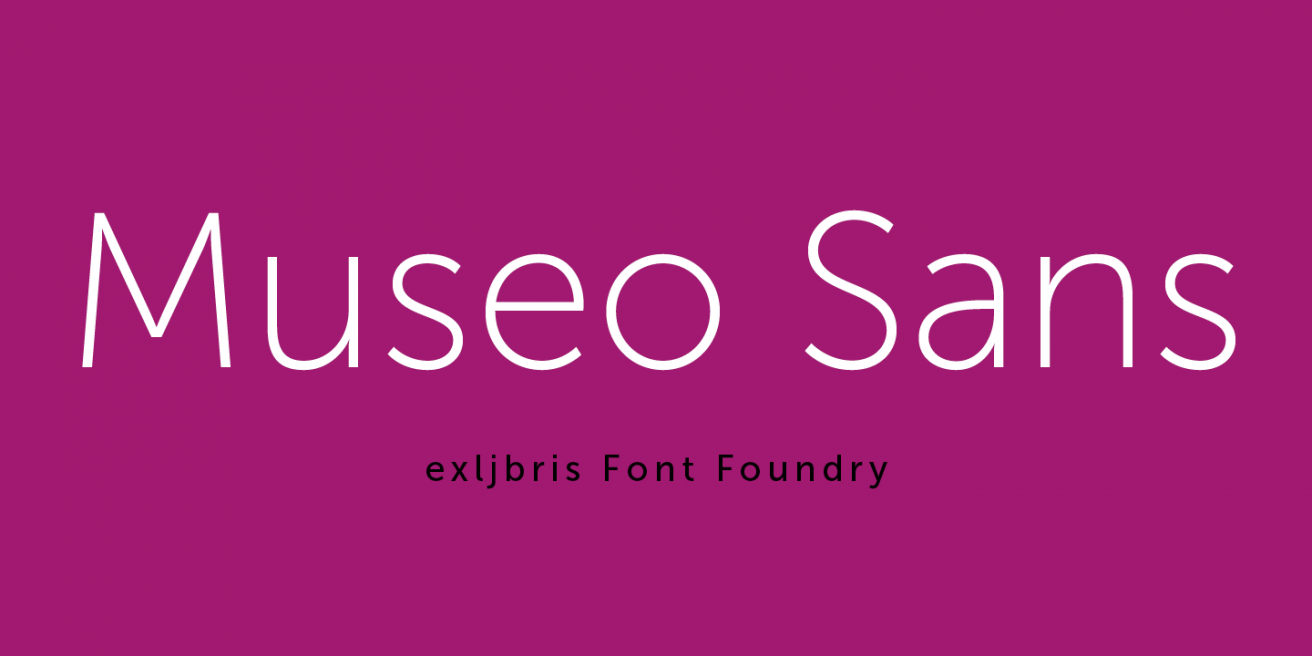
Sánchez is a fantastic slab serif font. Use it for text or some banners with the free regular and italic weights, or purchase the thicker weights and expand it to even more bold titling. |
The free weight of Look Script has a wood grain effect that we find very useful, not limiting or gimmicky. It works great for vintage effects, especially since it’s on the subtler side. Use it in a variety of designs, or opt for the full family and get a bunch more weights and effects. |
Museo Sans, along with the other Museo fonts, are workhorse fonts that find their home anywhere. You can design a whole site in the 500 weights that are free, or create awesome looking banners. We love it for text especially. If you need a font family that’s not expensive, opt for this one, it’s a perfect first family for a new designer. |
Sure you could use Times or Garamond in all your designs and look like everyone else, or you could grab Ethos and Ethos italic for free, and make original designs with a more contemporary serif font. If you fall in love with Ethos (and you will) the whole family is half off right now! |
Novecento Sans actually got most of its popularity from its free weights, the Novecento Wide fonts. They make fantastic titling fonts, especially for modern designs. Plus there’s 6 weights to work with that are all free, giving you a really solid variety to make your designs. |